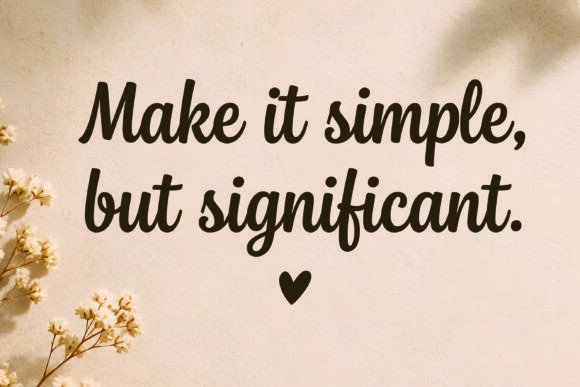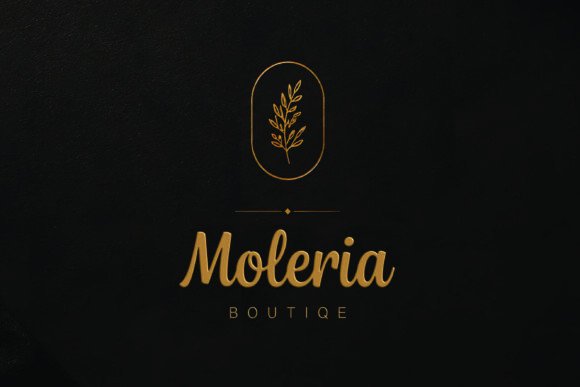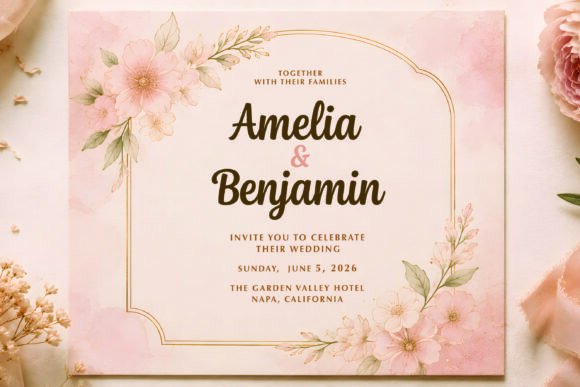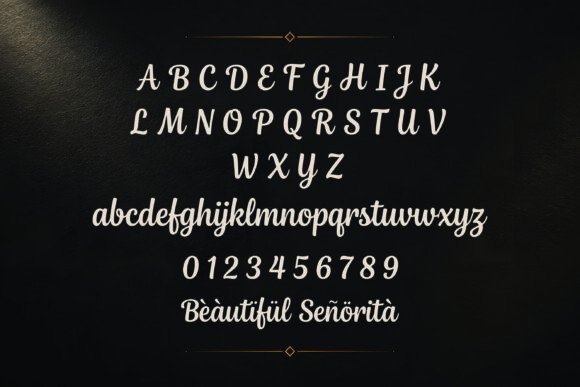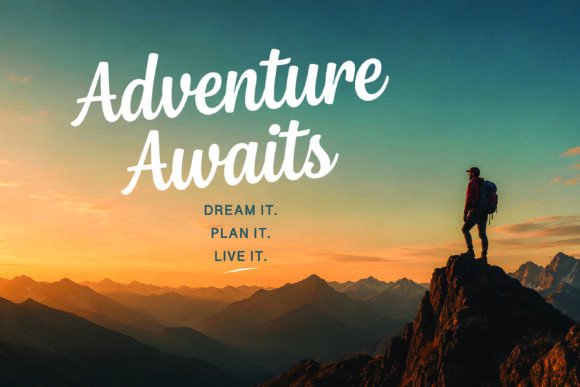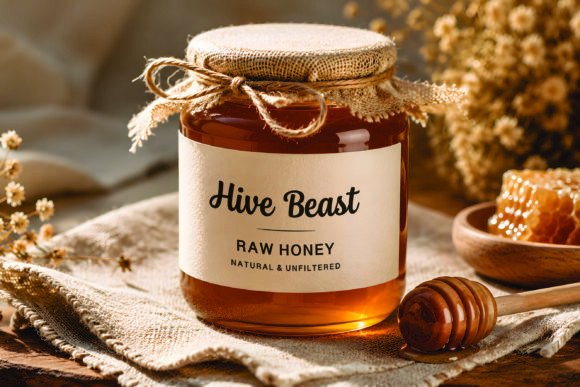
The Perfect Blend of Luxury and Whimsy
As designers, we’ve all had that moment when we stumble upon the perfect font to elevate our project from good to great. For me, it was when I discovered the Alverina Font – a smooth and elegant handwritten script font that exudes warmth and sophistication. I was working on a branding project for a luxury spa, and I needed a font that would convey the perfect balance of luxury and approachability. Alverina Font’s flowing curves and bold strokes were the perfect solution.
With its unique blend of modern and handwritten charm, the Alverina Font is a valuable addition to any designer’s toolkit. Whether you’re creating logos, packaging, or social media graphics, this font is sure to make your designs stand out. Its soft connections and expressive letterforms create a premium signature look that’s both stylish and highly readable.
• Unique Characteristics: Alverina Font features a clean, modern design with rounded edges, making it suitable for corporate, editorial, and digital applications.
Review of Alverina Font
First impressions matter, and Alverina Font does not disappoint. The ✨ elegant lines and refined curves of this script font instantly caught my attention. Its modern take on classic calligraphy is both sophisticated and stylish, making it perfect for a wide range of applications, from branding and advertising to digital products and packaging.
One of the standout features of Alverina Font is its ✨ exceptional legibility, even at smaller font sizes. The font’s letterforms are well-balanced and proportionate, ensuring that text remains easy to read and understand. Additionally, the font’s ✨ versatility is a major plus, as it can be used in both formal and informal contexts.
While Alverina Font is a solid choice, there are a few areas where it falls short. ⚠️ One of the main limitations is its lack of support for certain languages, which may be a concern for designers working with multilingual clients. Additionally, the font’s ✨ limited character set may require some extra work for designers who need to include special characters or symbols.
Overall, I would give Alverina Font 4 out of 5 stars. While it excels in many areas, its limitations prevent it from being a truly top-notch font. However, for designers looking for a high-quality, stylish script font with exceptional legibility, Alverina Font is definitely worth considering.
• ✨ Elegant lines and refined curves
• ✨ Exceptional legibility
• ✨ Versatile and suitable for various applications
Use Alverina Font for creative projects that require a unique, elegant touch.
Pair Alverina Font with complementary fonts to create a visually appealing design.
Experiment with different font sizes and styles to add depth and interest to your design.
Alverina Font is ideal for:
Book covers and literary projects
Alternatives to Alverina Font
Alverina Font is a sans-serif font known for its modern and clean appearance, making it suitable for various design projects. However, designers may need alternatives for specific projects or to add more variety to their designs.
Is Alverina available in italic and bold styles?
Yes, Alverina is available in italic and bold styles, allowing you to add emphasis and visual interest to your text. The italic style is ideal for setting off quotes or titles, while the bold style is great for headings and highlights.